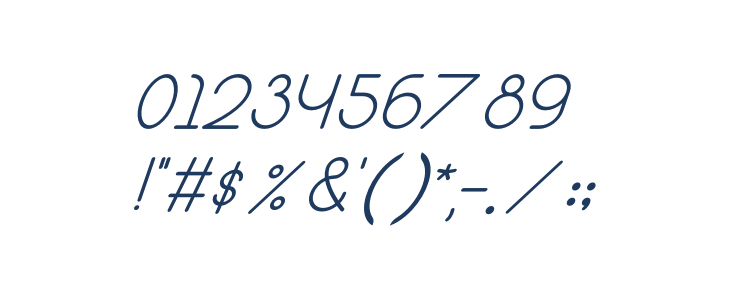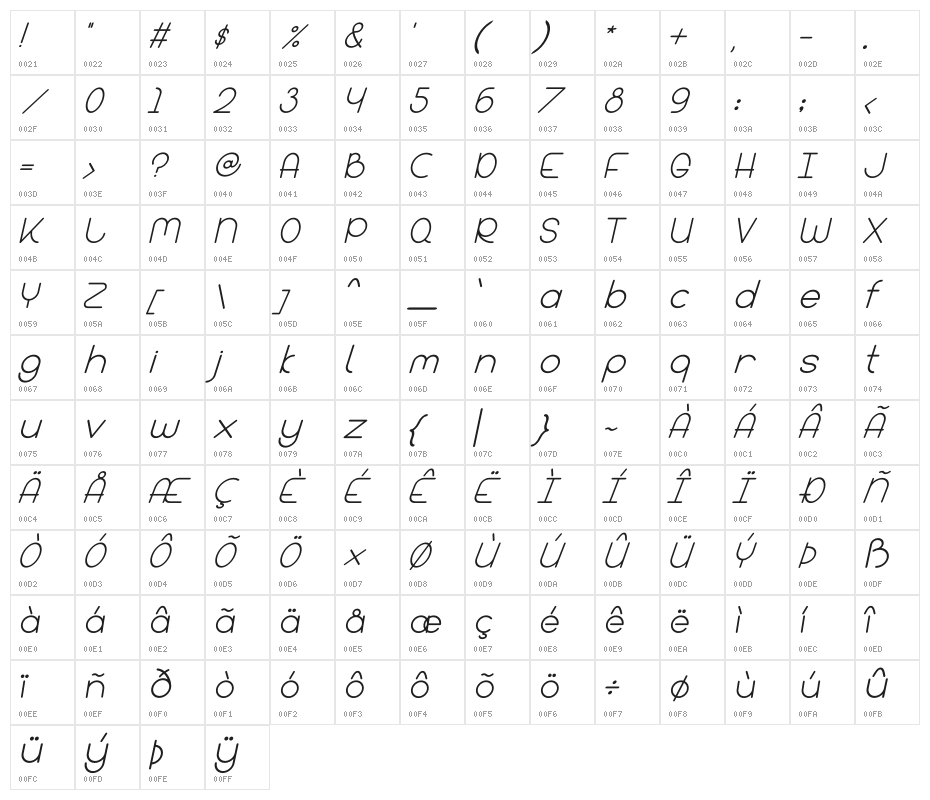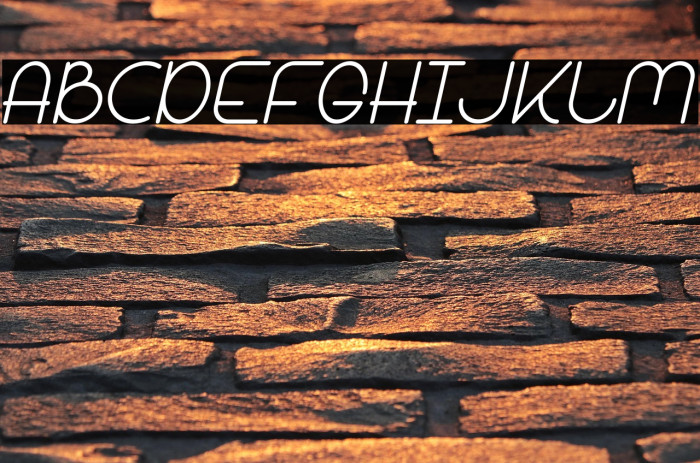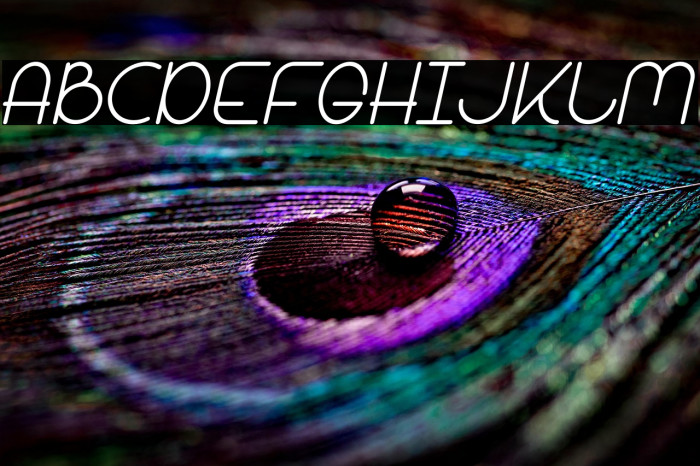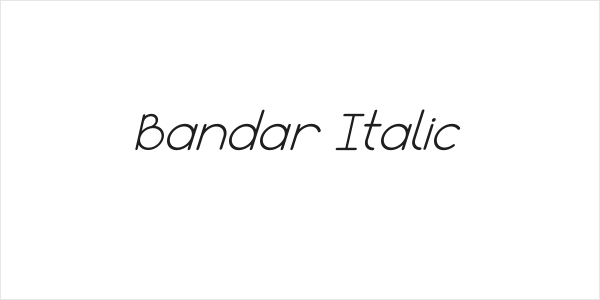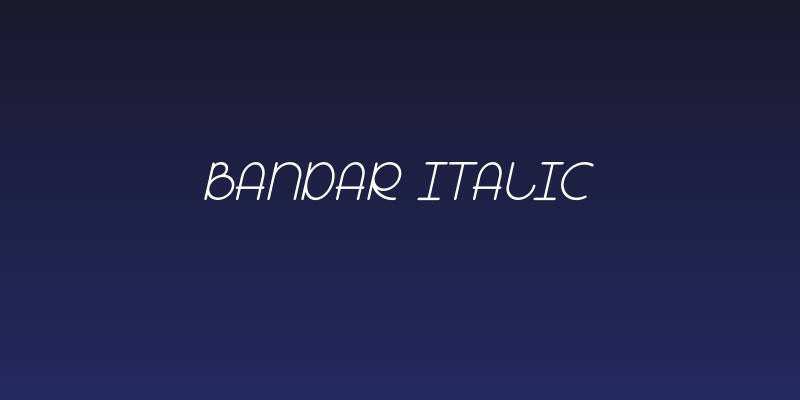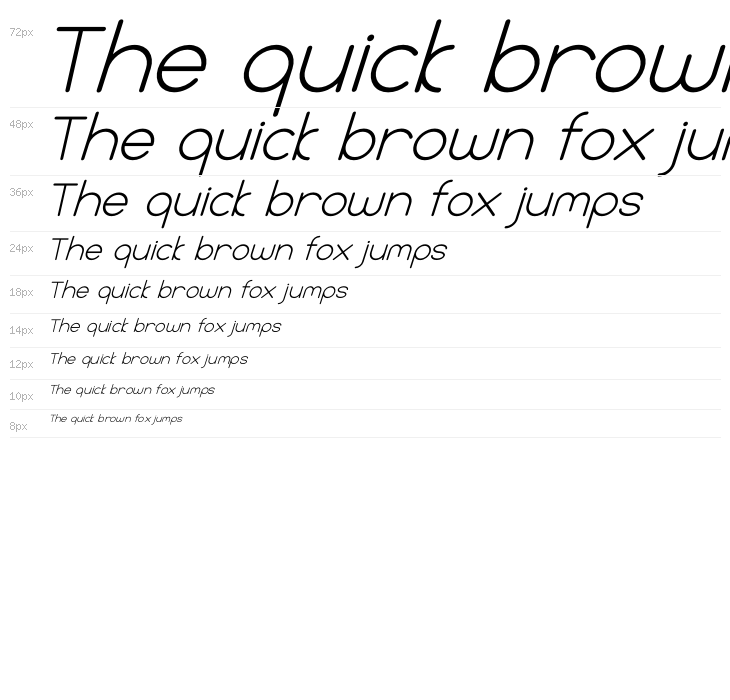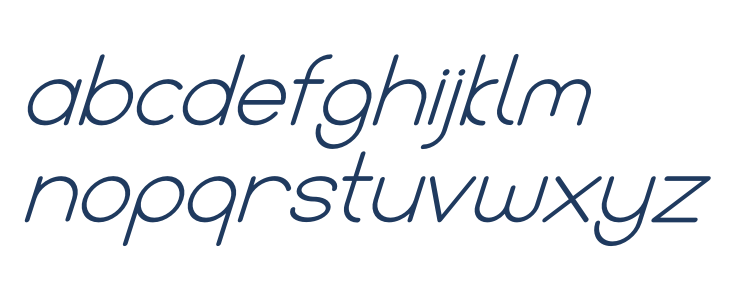
Bandar Italic Font
Bandar Italic Description
This font features a sleek, italicized style with smooth, flowing curves and a modern aesthetic. The characters are slightly elongated, giving them an elegant and sophisticated appearance. The uppercase letters maintain a consistent height, while the lowercase letters are slightly smaller, creating a harmonious balance. The numbers are well-proportioned, matching the overall style of the alphabet. Special characters are designed with the same fluidity, ensuring a cohesive look across all glyphs. The font's design is both contemporary and versatile, making it suitable for a variety of applications.
| Proposed Projects | Ideal for branding, fashion magazines, elegant invitations, and modern web design. |